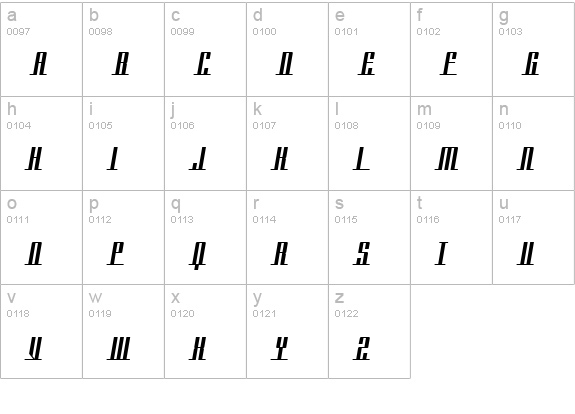
Americana Dreams SC Font Details
Americana Dreams SC is a charming and versatile font that embodies the essence of classic American design. With its timeless appeal and vintage aesthetic, this font is perfect for creating nostalgic and authentic designs. Featuring clean lines and elegant curves, Americana Dreams SC is ideal for adding a touch of Americana flair to logos, branding, packaging, and more. What makes Americana Dreams SC even more appealing is that it is available for free download at FontsMarket.com. Whether you're a designer looking to evoke a sense of nostalgia or simply appreciate the beauty of classic American typography, Americana Dreams SC is sure to capture your imagination and bring your creative projects to life. Download this font today and infuse your designs with the spirit of Americana.